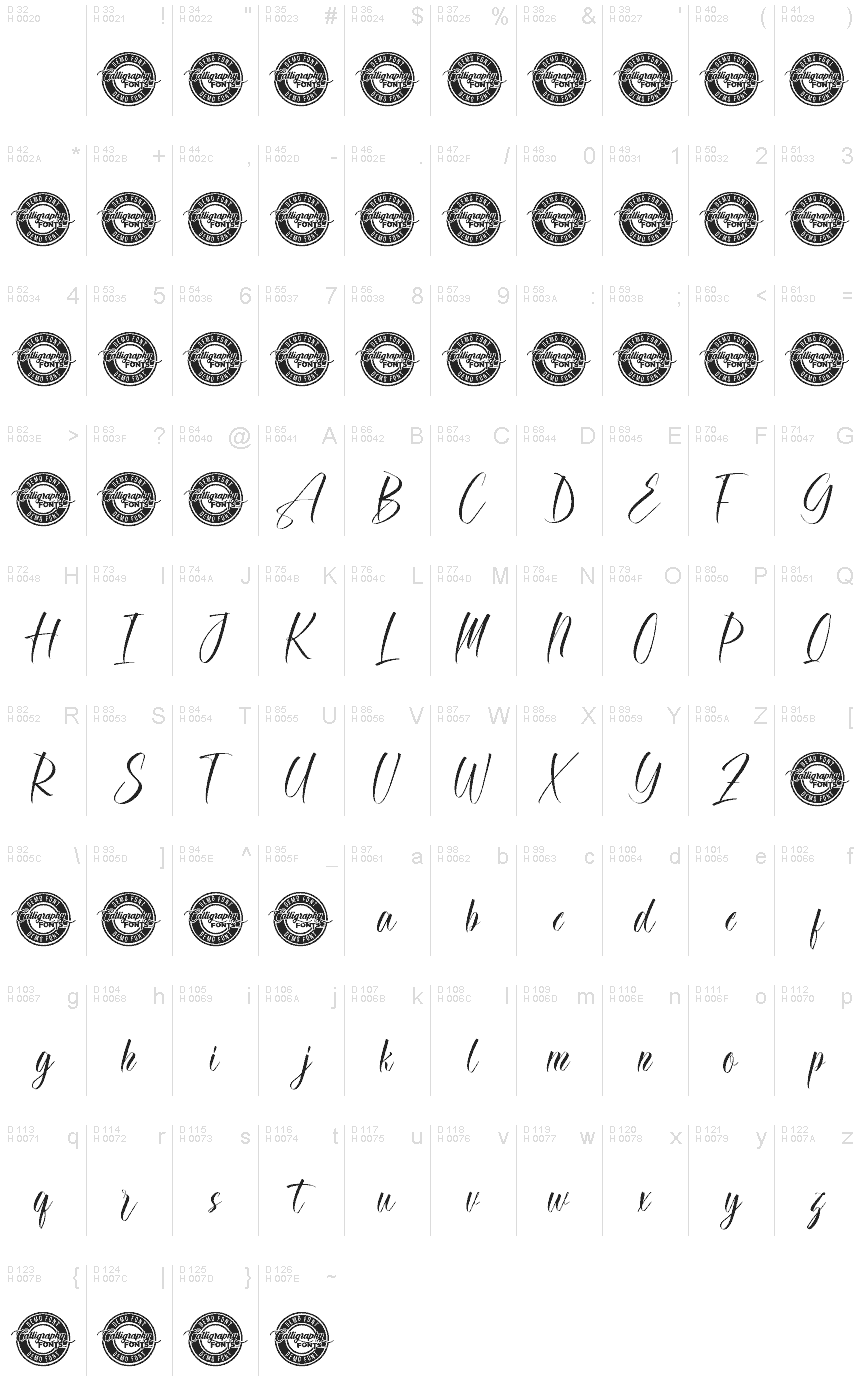
Astraia Demo
Let us introduce you to Astraia, this free script font designed and shared by Calligraphy Fonts. It is a calligraphic typeface with both style and grace in every character.
Create stunning projects with this flowing script in magazines, journals, blogs, and websites and present your content with a modern style that would be eye-catching and unforgettable. If you love handwriting, then this font will feel right at home and since it is free, it can easily be added to your font collection and used for any purpose you need, such as titles, headlines, and others.
And since the script font can be placed on top of an image or a geometric background, Astraia presents to you a font with endless possibilities.